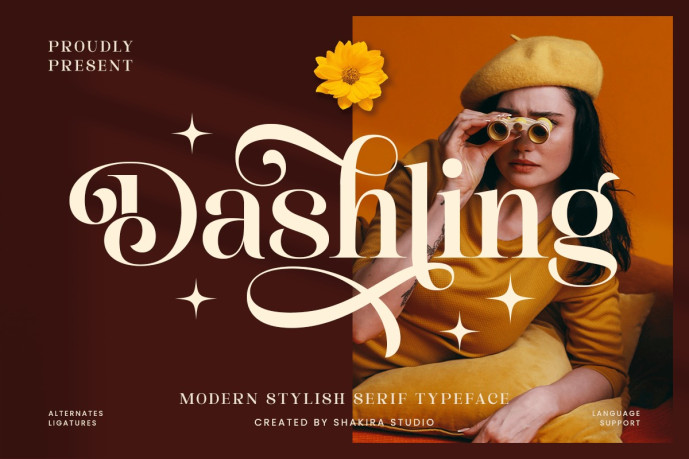
Dashling – Modern Serif Font
Designer: IdhhamCholid
Dashling – Modern Serif Font with bold curves and confident elegance. Its strong shapes and unique ligatures make it perfect for fashion branding, packaging, and magazine design. This typeface captures the balance between vintage sophistication and modern flair, designed to make every title stand out beautifully.
Features:
• Regular & Italic
• Uppercase & Lowercase Letters
• Alternates & Ligatures
• Multilingual Support
Perfect For: Editorial titles, fashion branding, creative logos, and modern packaging.